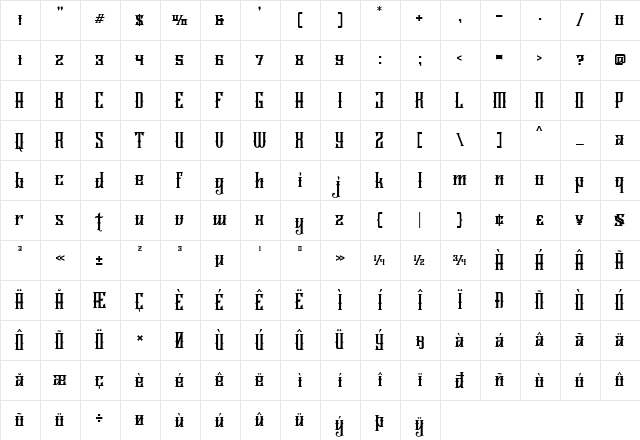
Jailetter Regular Free Font
Jailetter Regular
Foundry: Graptail
Design Context for Jailetter
Jailetter is a composed and adaptable typeface that performs quietly and consistently across a wide range of design contexts.
Pro Tip: Use Jailetter in both headline and body roles to test its range before committing to a single application.